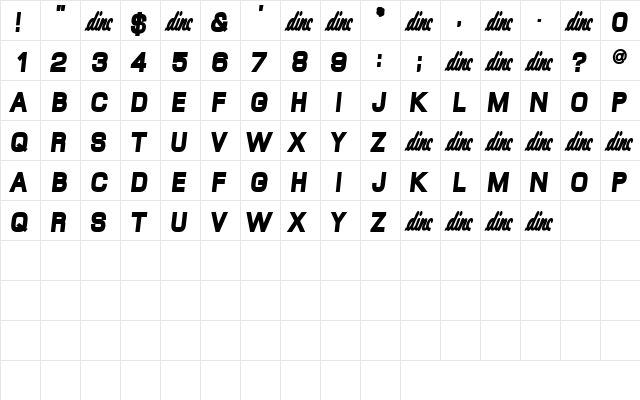
LittleEden Regular Font Preview
LittleEden Regular
Design Context for LittleEden Typeface
LittleEden takes a measured approach to typography — its balanced proportions and neutral character make it a reliable workhorse for both digital and print work.